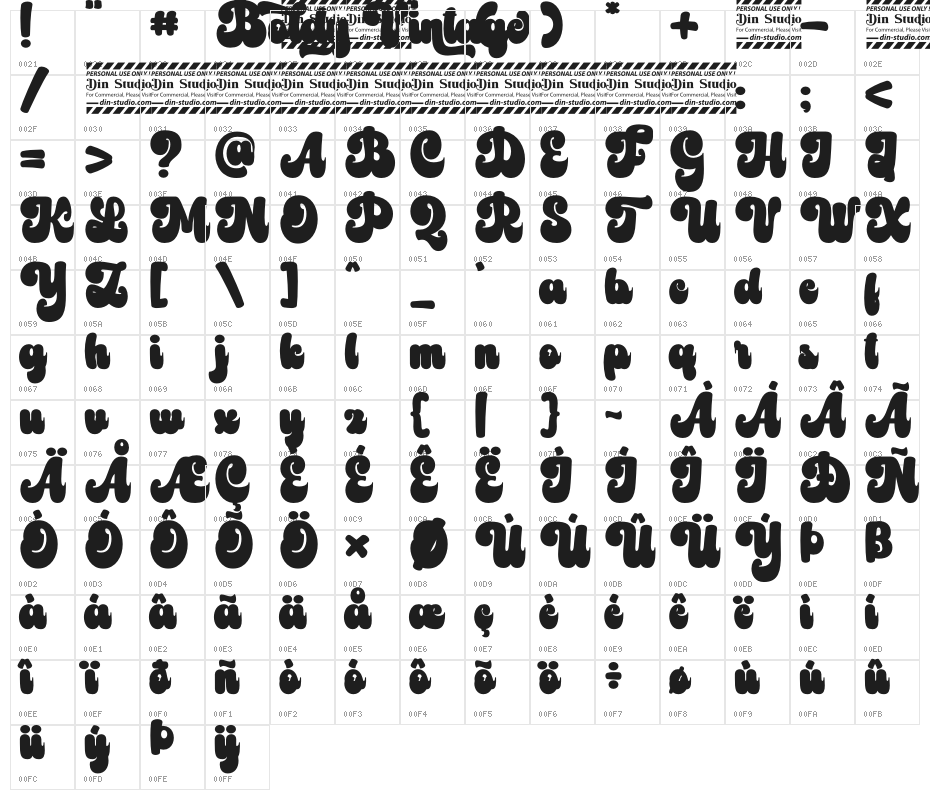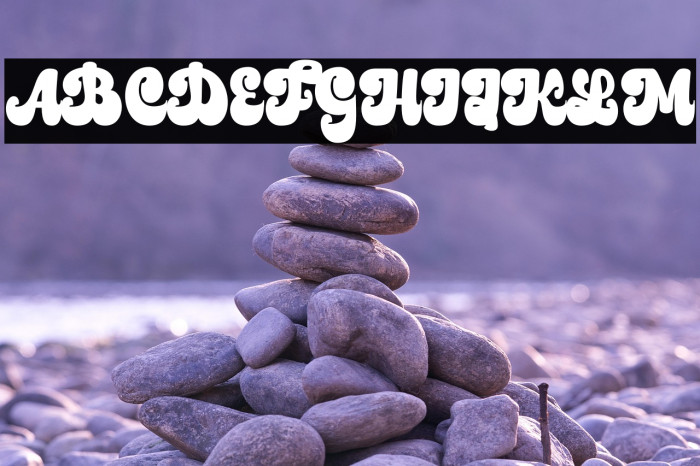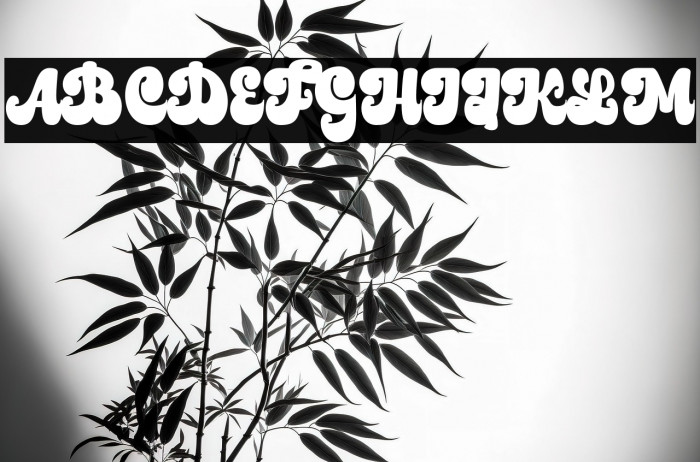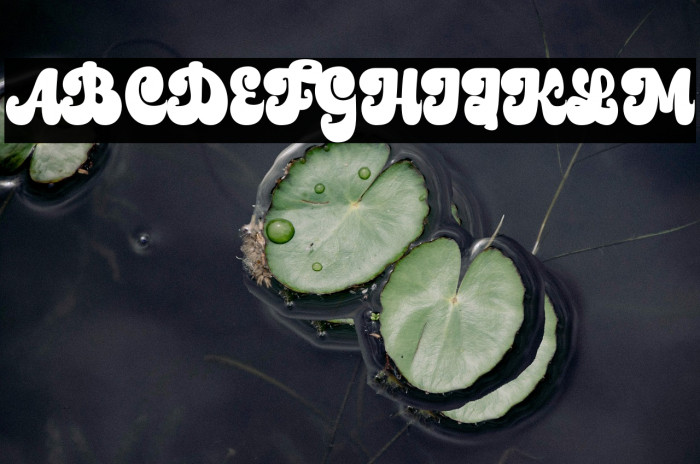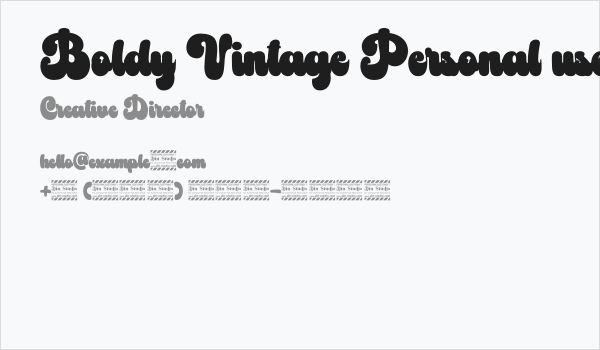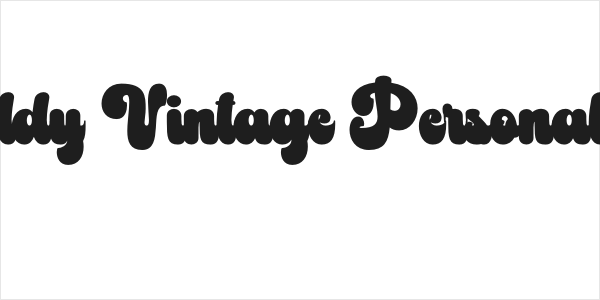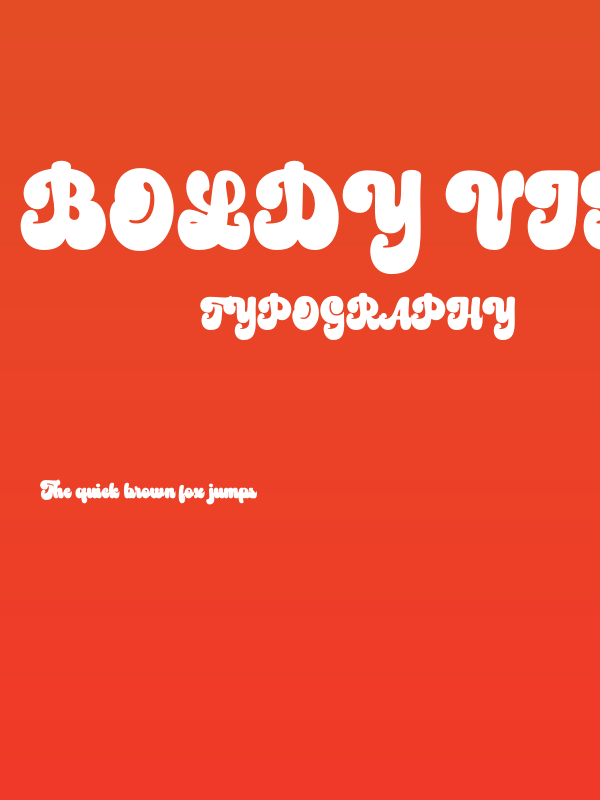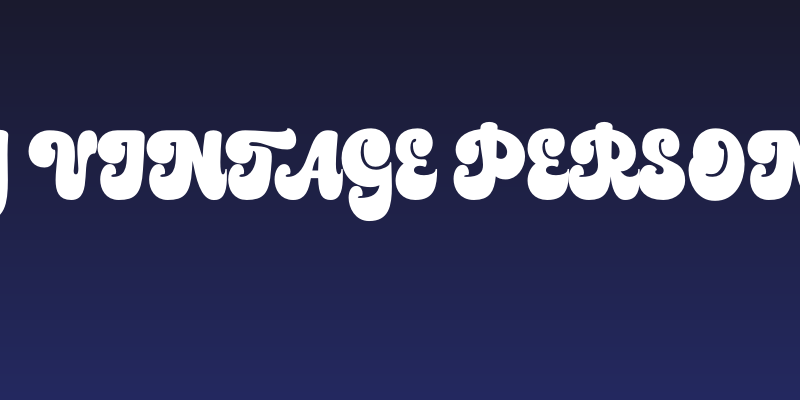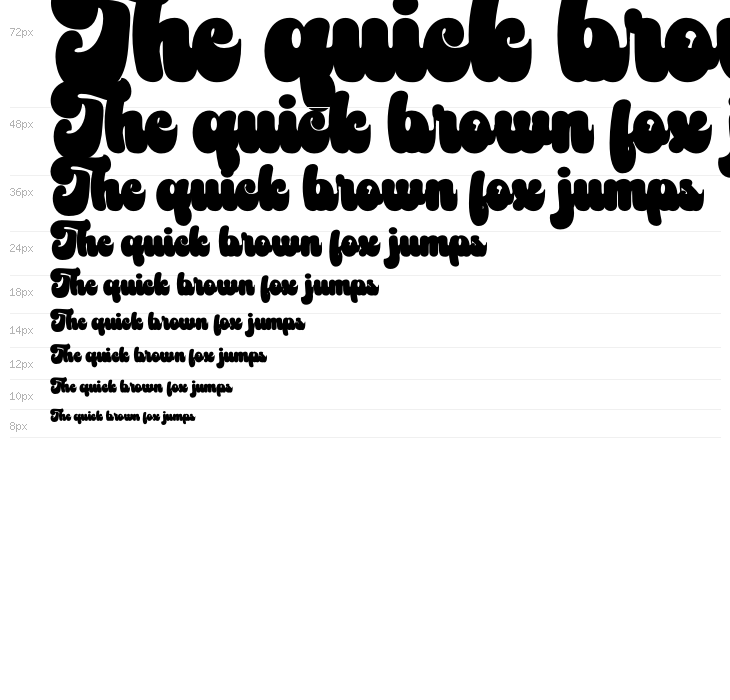
Boldy Vintage Personal use Font
Boldy Vintage Personal use Description
This font features a bold and playful design with a vintage flair. The characters are thick and rounded, giving them a strong presence on the page. The uppercase and lowercase letters maintain a consistent style, with smooth curves and a slightly whimsical touch. The font includes a full set of numerals and a selection of special characters, making it versatile for various design needs. Its boldness and unique style make it stand out, perfect for creating eye-catching headlines or logos.
| Proposed Projects | Ideal for retro-themed posters, branding projects, logos, and eye-catching headlines. |